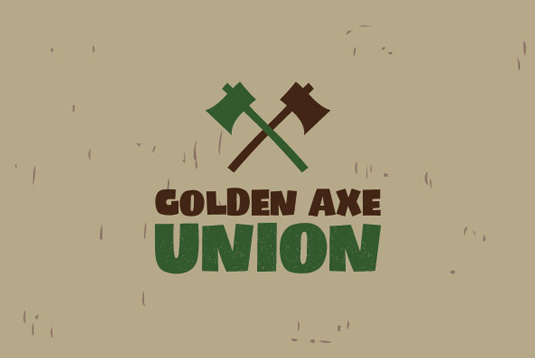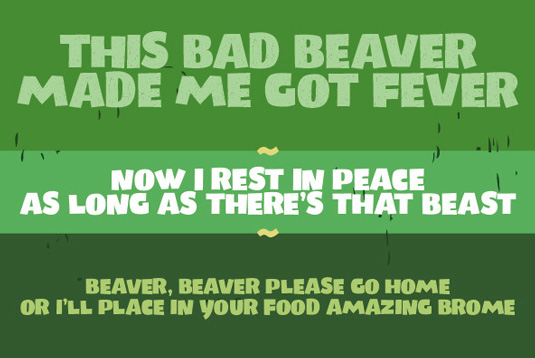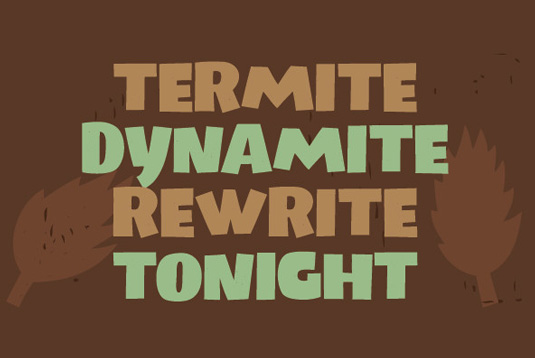
Font of the day: Lumberjacky
Lumberjacky by Dusan Jelesijevic
Today's font of choice is Lumberjacky by Dusan Jelesijevic. A high contrast display typeface, Lumberjacky has been designed with artistic capital letters, with a light texture added to make the whole font look more natural.
Available from MyFonts, Lumberjacky is described as being an "excellent choice for toys packaging, artistic posters, funny t-shirts, catchy headlines and logos".